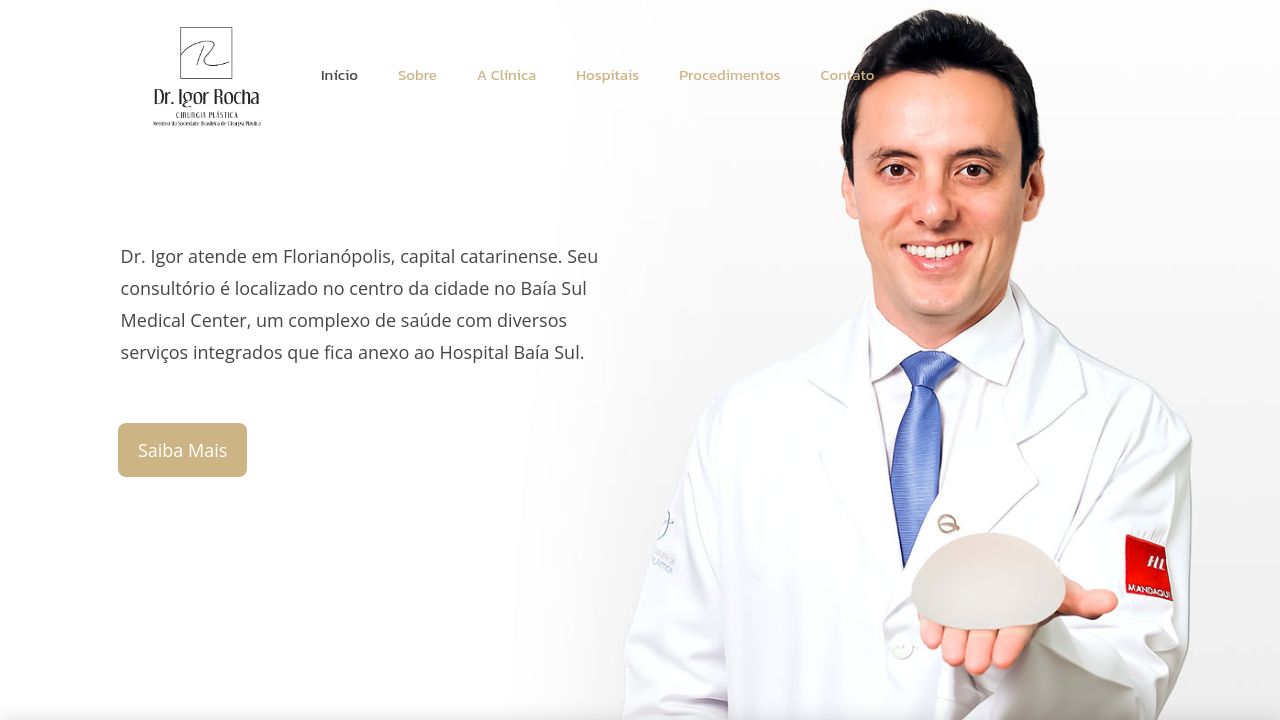
What fonts does Cirurgiaplasticasc use?
Cirurgia Plástica – Dr Igor Rocha employs a distinctive blend of fonts to communicate effectively with clients seeking cosmetic procedures. The use of Arial and Verdana provides clarity and accessibility, while Open Sans and Kanit add a touch of modernity and approachability. Consolas, with its monospaced style, is utilized for technical elements, ensuring precision. This thoughtful typographic choice reflects the brand's commitment to professionalism and customer engagement in the field of plastic surgery.
Frequently asked questions about Cirurgiaplasticasc.com.br's fonts
What fonts does cirurgiaplasticasc.com.br use?
The website cirurgiaplasticasc.com.br primarily uses Arial, Consolas, Open Sans, Verdana, and Kanit, along with custom mfn-icons.
How do the fonts on cirurgiaplasticasc.com.br compare to alternatives?
Fonts like Open Sans and Kanit provide a friendly appearance, contrasting with more traditional fonts like Times New Roman. Arial and Verdana ensure readability across devices.
What styles and weights are available for the fonts used on cirurgiaplasticasc.com.br?
Open Sans and Kanit offer various weights, including 1, 200, 400, and 700. Arial, Verdana, and Consolas are primarily used in weight 400.
What fallback fonts are used on cirurgiaplasticasc.com.br?
The fallback fonts for cirurgiaplasticasc.com.br include Roboto, Helvetica Neue, Segoe UI, Ubuntu, and Cantarell, ensuring a consistent appearance across different browsers.